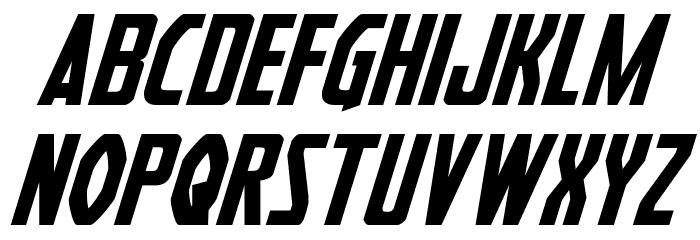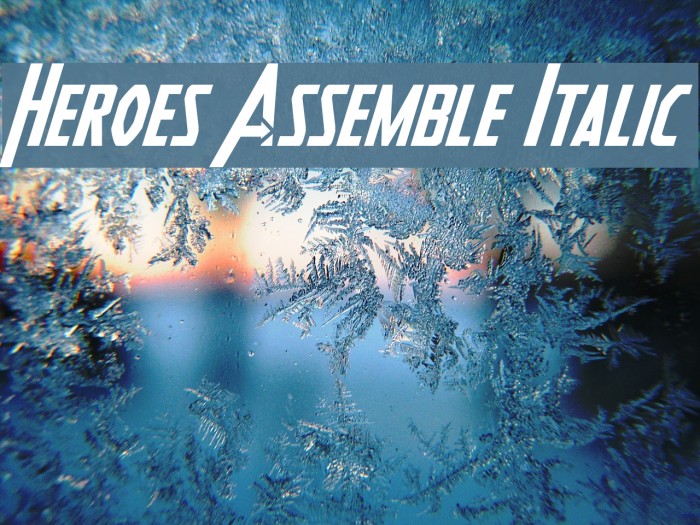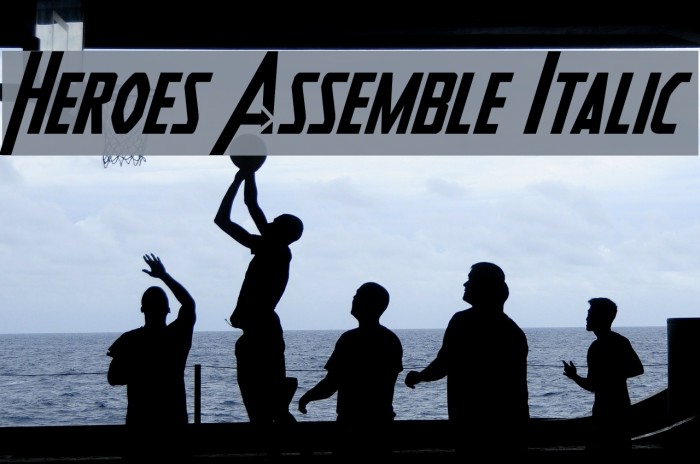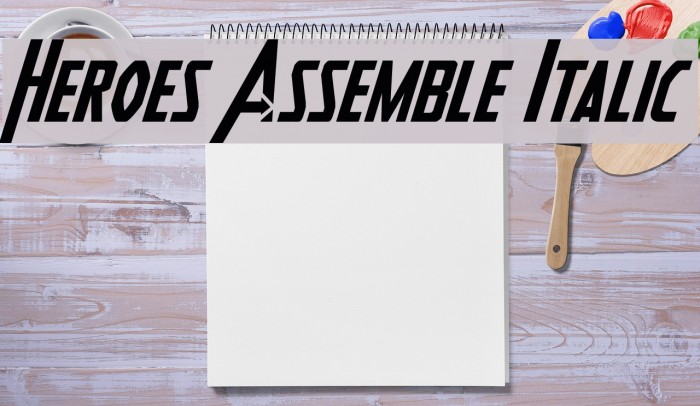
Heroes Assemble Italic Font
This font features a bold and dynamic style with a strong italic slant, giving it a sense of motion and energy. The characters are sharply angular, with pointed edges and a futuristic appearance. The uppercase and lowercase letters maintain a consistent height, contributing to a uniform look across text. The numerals and special characters follow the same design principles, ensuring a cohesive visual experience. The font's design is reminiscent of comic book or superhero themes, making it ideal for projects that require a sense of action and excitement.
Bold, italic font with a dynamic, angular design, ideal for action-themed projects.
- Proposed Projects: Perfect for comic book titles, superhero-themed posters, video game graphics, and dynamic branding materials.
- Overall Style: Modern, Futuristic